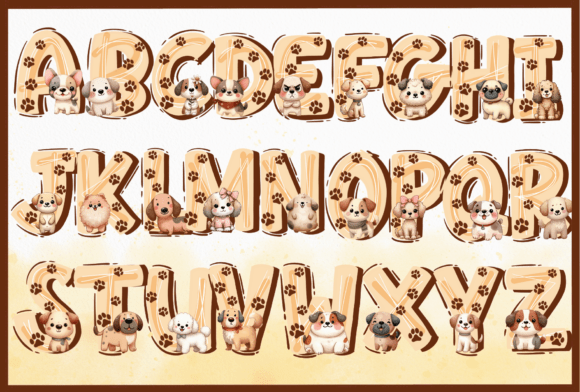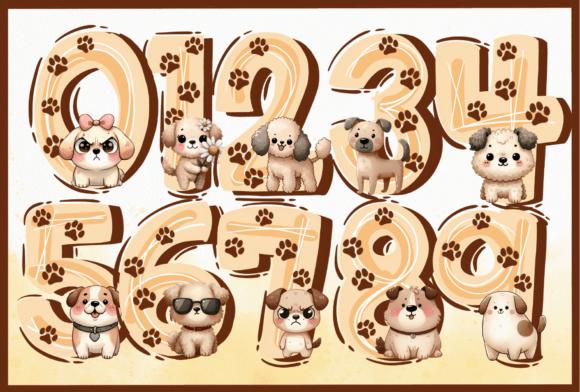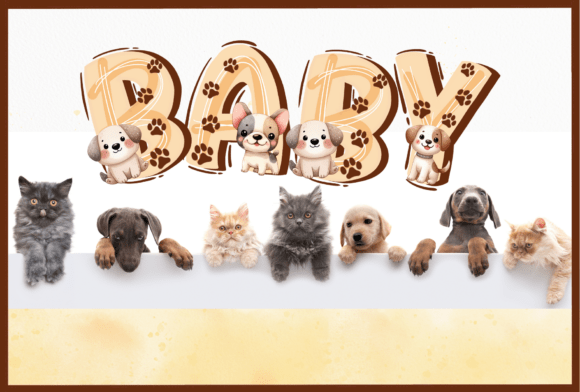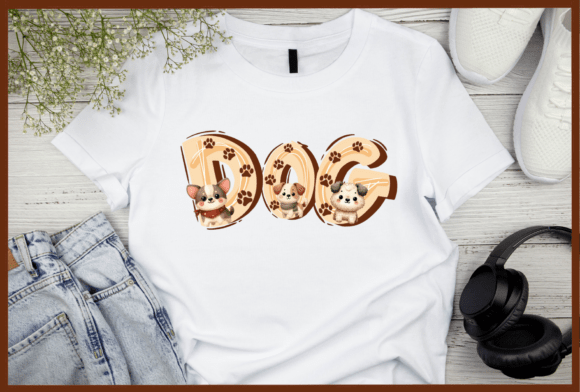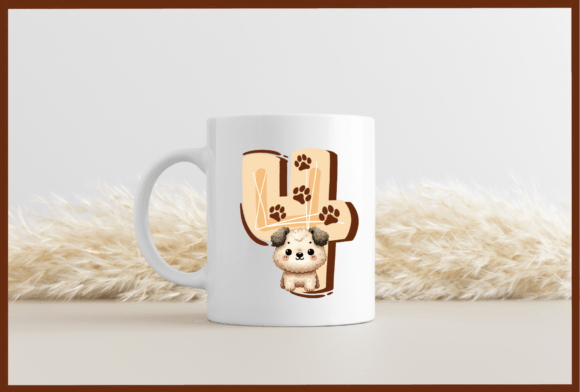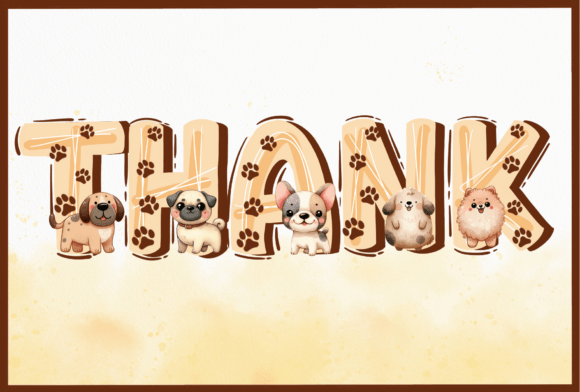
Introduction to Doggy Style Font
Have you ever stared at a blank page, struggling to find the perfect font to bring your creative project to life? I know I have! That’s why I’m excited to share with you the latest addition to my design arsenal: the adorable Doggy Style Font. This playful display font is a must-have for any designer looking to add a touch of cuteness and charm to their work.
As a designer, I’m always on the lookout for high-quality fonts that can elevate my designs and make them stand out. And let me tell you, the Doggy Style Font delivers. With its adorable puppy-themed lettering and transparent background, this font is perfect for creating eye-catching designs that are sure to delight. Plus, it’s a free download, making it an invaluable resource for any creative project.
Key Features of Doggy Style Font
- High-quality, unique design suitable for creative projects, with a transparent background for seamless integration.
- Comes in a single weight, perfect for adding a touch of personality to your designs without overwhelming the layout.
- Unique characteristics: The Doggy Style Font features a playful, handwritten style with distinctive flourishes, making it ideal for adding a touch of whimsy to your creative projects.
Honest Review: Doggy Style Font
The font itself is quite high quality, with clean lines and a unique aesthetic that’s sure to stand out. One of the standout features of this font is its transparent background, allowing for seamless integration with any design.
- High quality design with clean lines
- Unique aesthetic that’s perfect for creative projects
However, I do have a few reservations about the Doggy Style Font.
- Not suitable for formal or professional projects
- Limited versatility compared to other fonts
Overall, the Doggy Style Font is a great addition to any creative project, but it may not be the best fit for every design. Its unique aesthetic and transparent background make it an excellent choice for those looking for a high-quality, free design resource.
Doggy Style Font is ideal for creative projects that require a unique, high-quality font. Use it in branding materials, advertisements, or social media graphics to stand out from the crowd.
To maximize the potential of Doggy Style Font, experiment with different font sizes, colors, and styles. Combine it with other design elements to create visually appealing and engaging designs.